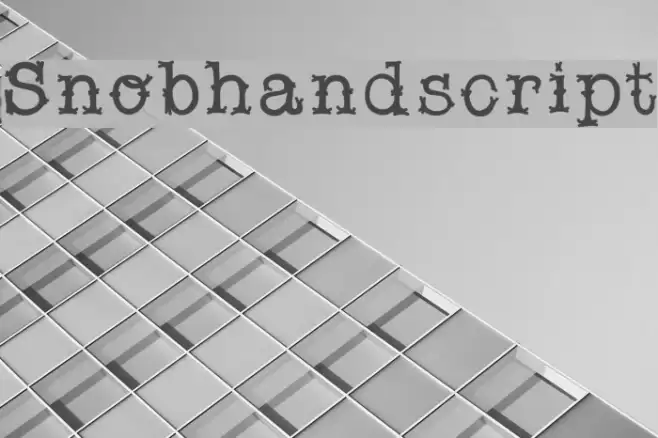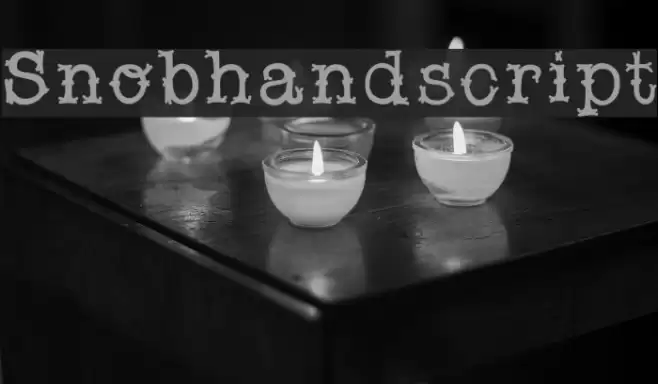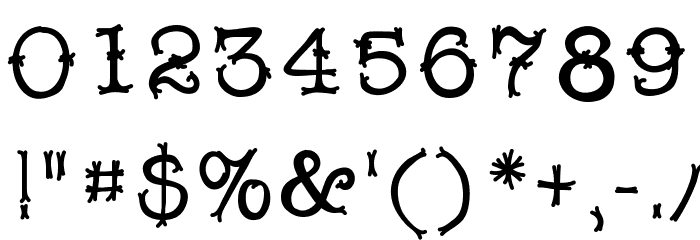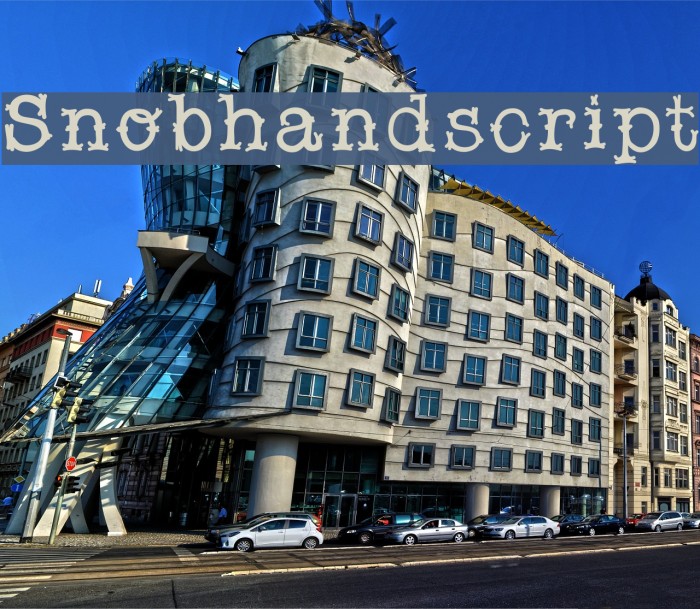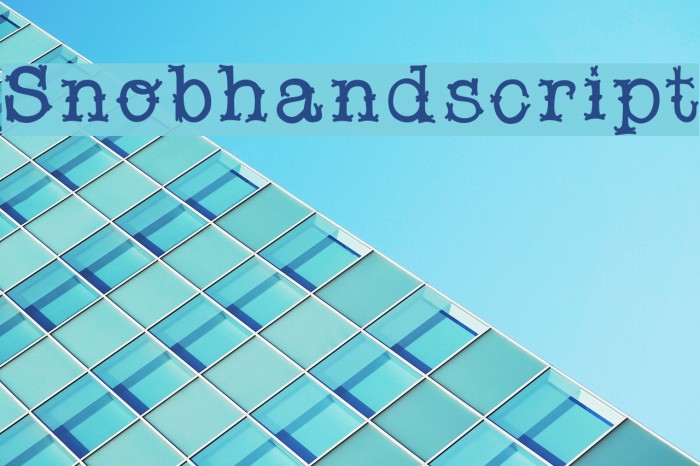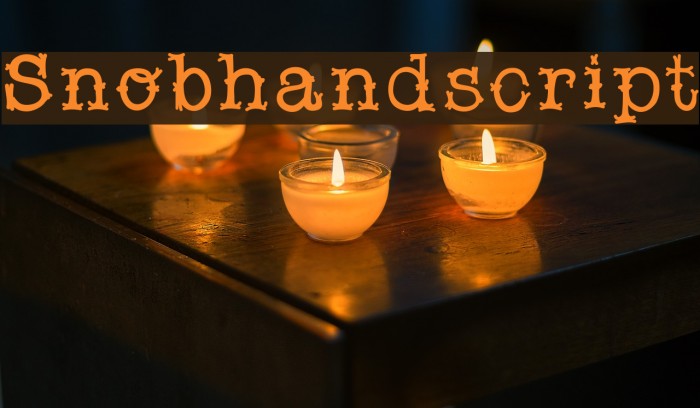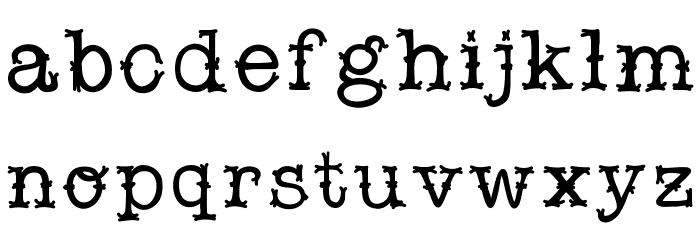
Snobhandscript Font
Snobhandscript Description
This font features a distinctive and ornate style, characterized by its decorative serifs and intricate detailing. The uppercase and lowercase letters maintain a consistent design, with flourishes that add a vintage and artistic flair. The numerals and special characters are equally embellished, making them stand out with their unique and elaborate forms. The overall appearance is bold and eye-catching, suitable for projects that require a touch of elegance and sophistication. The font's intricate design elements suggest a handcrafted feel, making it ideal for creative and artistic applications.
An ornate and decorative serif font with intricate detailing from Uncategorized fonts.
- Proposed Projects: Ideal for wedding invitations, vintage-themed posters, artistic branding, and decorative signage.
- Overall Style: Vintage
- Use Case: Headlines, Logos, Decorative text